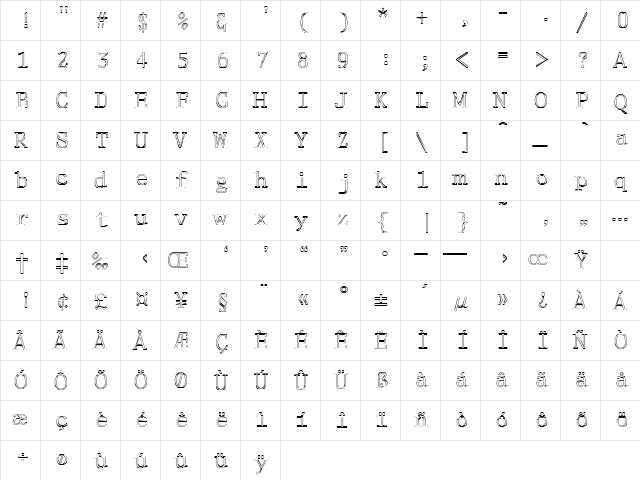
OutsiderOpen Regular
Design Context for OutsiderOpen Typeface
OutsiderOpen offers clean, dependable letterforms without strong stylistic allegiance, making it a practical choice for designers who need flexibility.